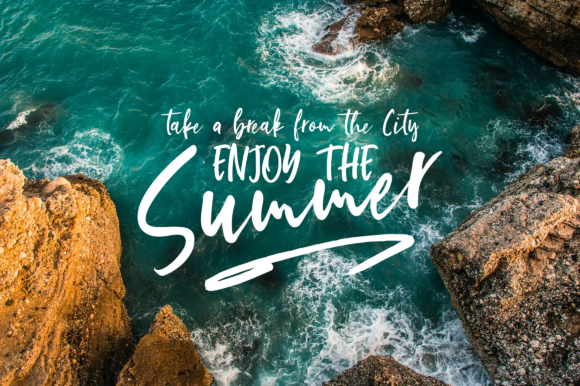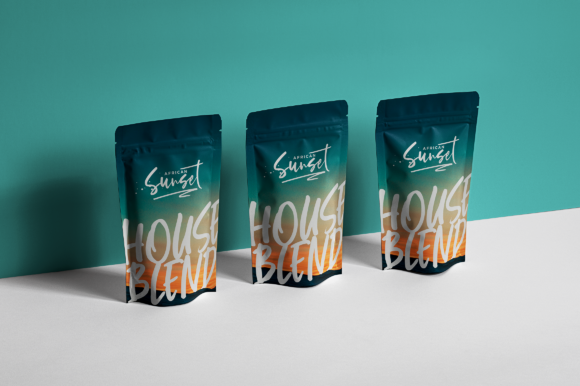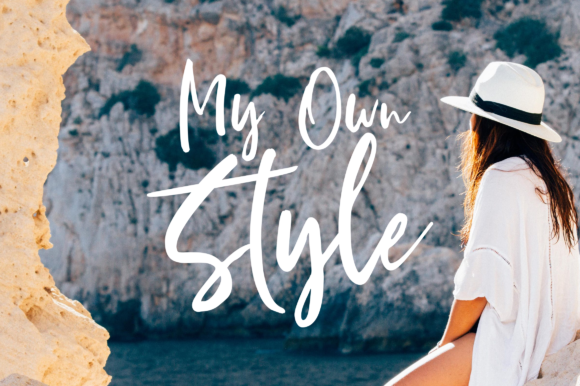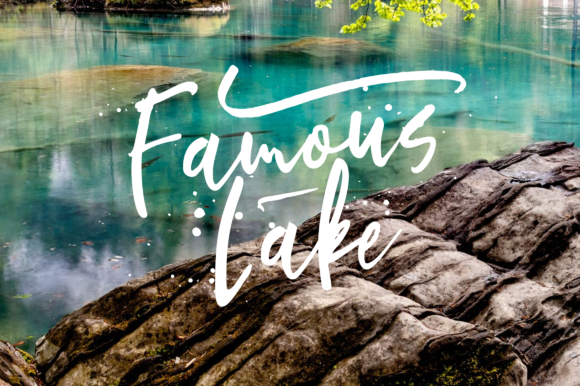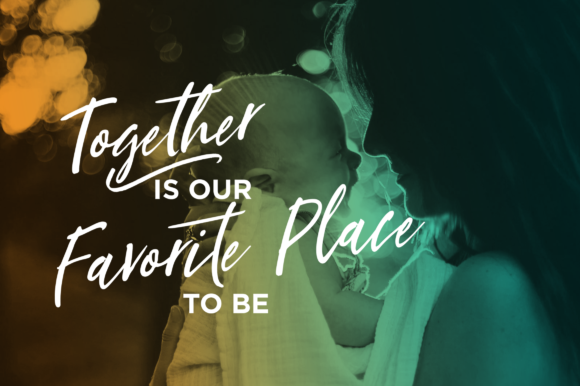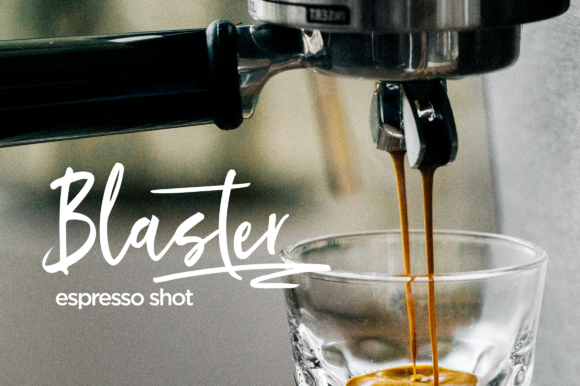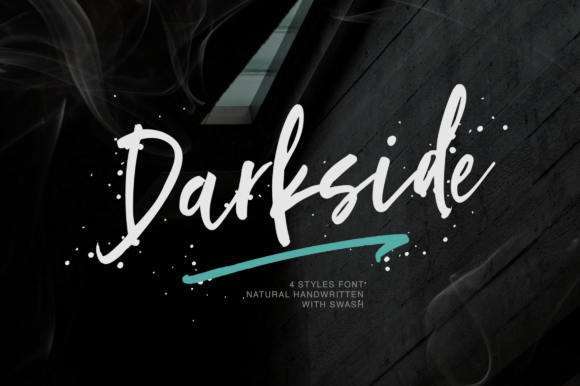
Unleash Your Creativity with Darkside Font: A Bold and Mysterious Script
Are you tired of using the same old fonts in your designs? Do you want to add a touch of mystery and power to your creations? Look no further than Darkside Font, a bold and mysterious script that’s sure to unleash your dark side. In this article, we’ll take a closer look at Darkside Font, its features, and how you can use it to take your designs to the next level.
What is Darkside Font?
Darkside Font is a dark and mysterious script font that’s designed to make a statement. With its bold and powerful vibe, this font is perfect for designers who want to add a touch of edginess to their creations. Whether you’re working on a logo, a poster, or a website, Darkside Font is sure to grab attention and leave a lasting impression.
Features of Darkside Font
So, what makes Darkside Font so special? Here are just a few of its key features:
- Bold and powerful: Darkside Font is designed to make a statement. Its bold and powerful strokes are sure to grab attention and add a touch of drama to your designs.
- Mysterious and edgy: With its dark and mysterious vibe, Darkside Font is perfect for designers who want to add a touch of edginess to their creations.
- Script font: Darkside Font is a script font, which means it’s perfect for adding a touch of elegance and sophistication to your designs.
- Easy to read: Despite its bold and powerful strokes, Darkside Font is surprisingly easy to read, making it perfect for use in a variety of design applications.
How to Use Darkside Font
So, how can you use Darkside Font in your designs? Here are just a few ideas to get you started:
- Logos and branding: Darkside Font is perfect for creating bold and memorable logos that are sure to stand out.
- Posters and flyers: Add a touch of drama and edginess to your posters and flyers with Darkside Font.
- Web design: Use Darkside Font to add a touch of sophistication and elegance to your website.
- Social media graphics: Make your social media graphics stand out with Darkside Font.
Tips for Using Darkside Font
Here are just a few tips for using Darkside Font in your designs:
- Use it sparingly: Darkside Font is a bold and powerful font, so use it sparingly to avoid overwhelming your design.
- Pair it with other fonts: Darkside Font looks great when paired with other fonts, such as sans-serif fonts or serif fonts.
- Experiment with colors: Darkside Font looks great in a variety of colors, so experiment with different colors to find the one that works best for your design.
| Font Name | Darkside Font |
| Author | Letteratom |
In conclusion, Darkside Font is a bold and mysterious script font that’s perfect for designers who want to add a touch of edginess to their creations. With its powerful vibe and easy-to-read strokes, Darkside Font is sure to unleash your dark side and take your designs to the next level. So why not give it a try and see what you can create?